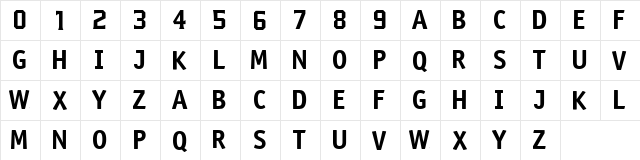
NHL Los Angeles Regular
Design Context for NHL Los Angeles Typeface
NHL Los Angeles is a composed and adaptable typeface that performs quietly and consistently across a wide range of design contexts.